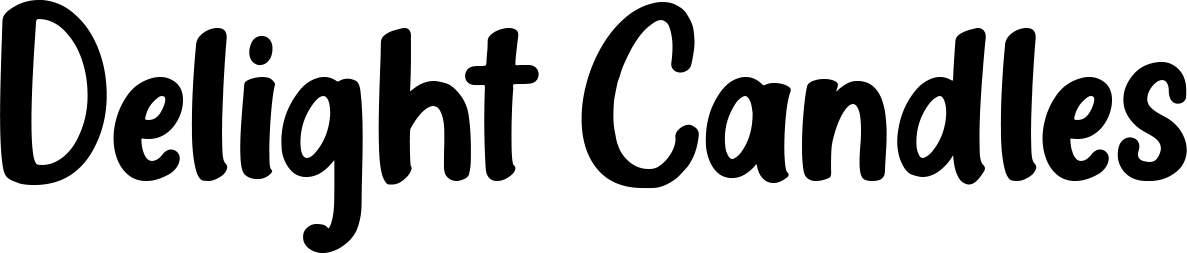
Delight Candles Font
Children’s content, such as storybooks, posters, and educational brochures, requires a suitable font, such as Delight Candles, to convey a sense of softness and youthfulness to this kind of audience and impress them. Delight Candles is a cartoon font that is very eye-catching and can boost the efficiency of your graphic work.